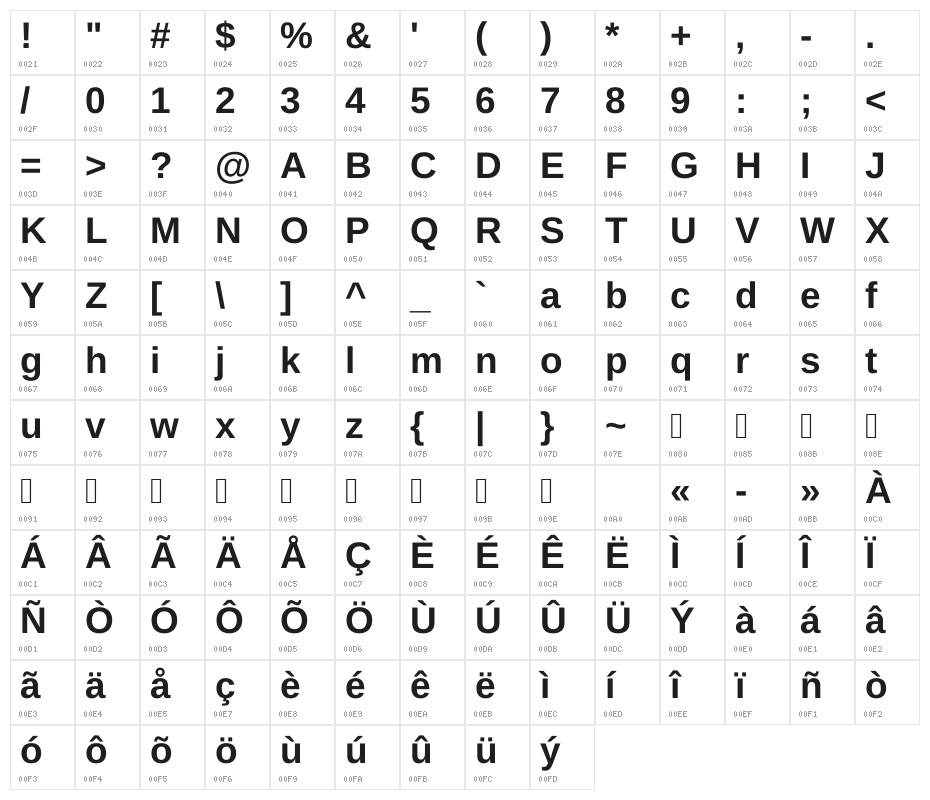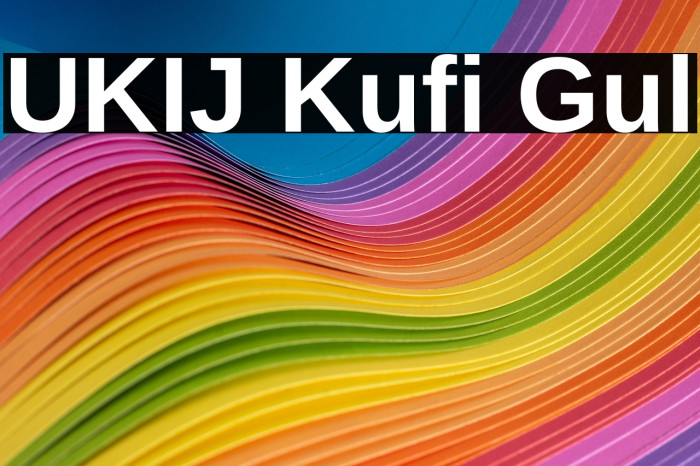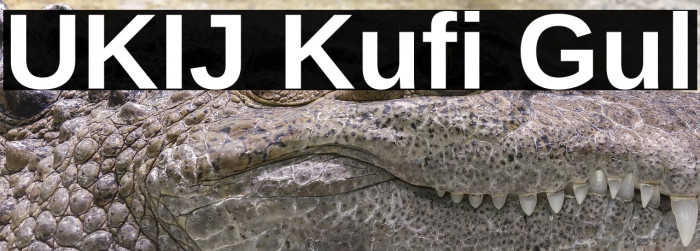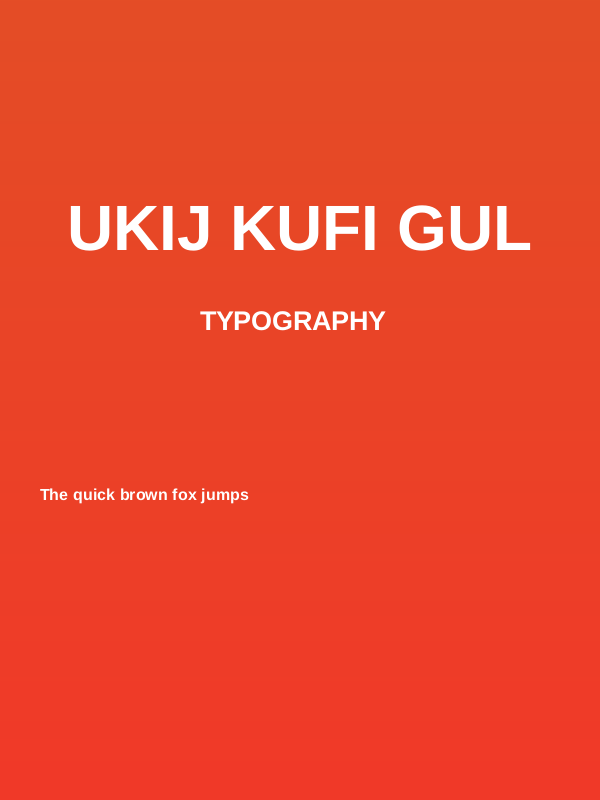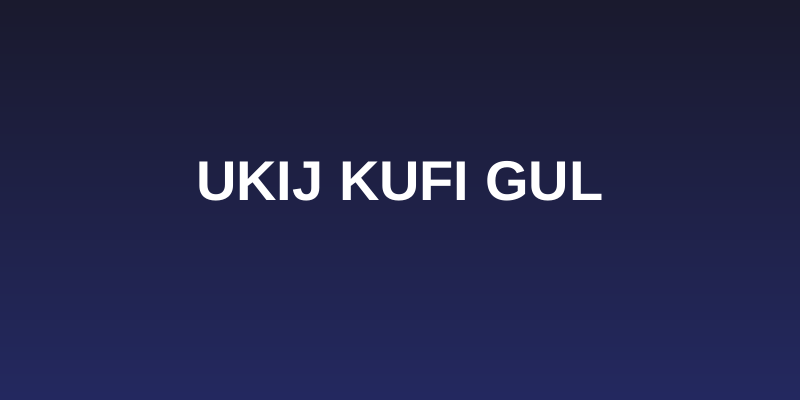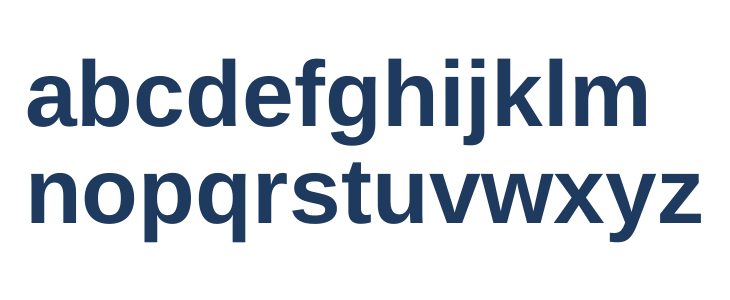
UKIJ Kufi Gul Font
UKIJ Kufi Gul Description
This font features a clean and modern sans-serif style with uniform stroke widths, providing a balanced and straightforward appearance. The characters are well-proportioned, with a consistent height and width that ensures readability. The uppercase letters are bold and assertive, while the lowercase letters maintain a friendly and approachable look. The numerals are clear and distinct, making them suitable for various applications. Special characters are designed with simplicity in mind, ensuring they blend seamlessly with the rest of the font. Overall, this font is versatile and can be used in a wide range of design projects.